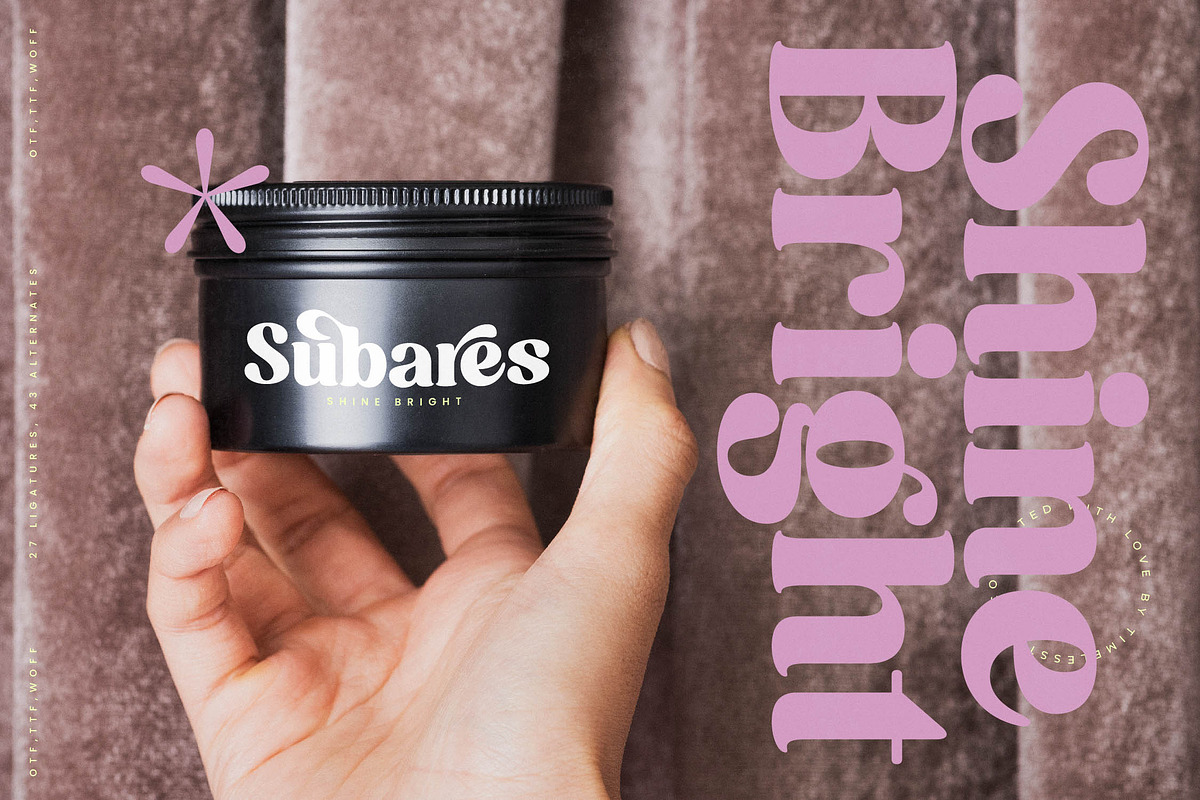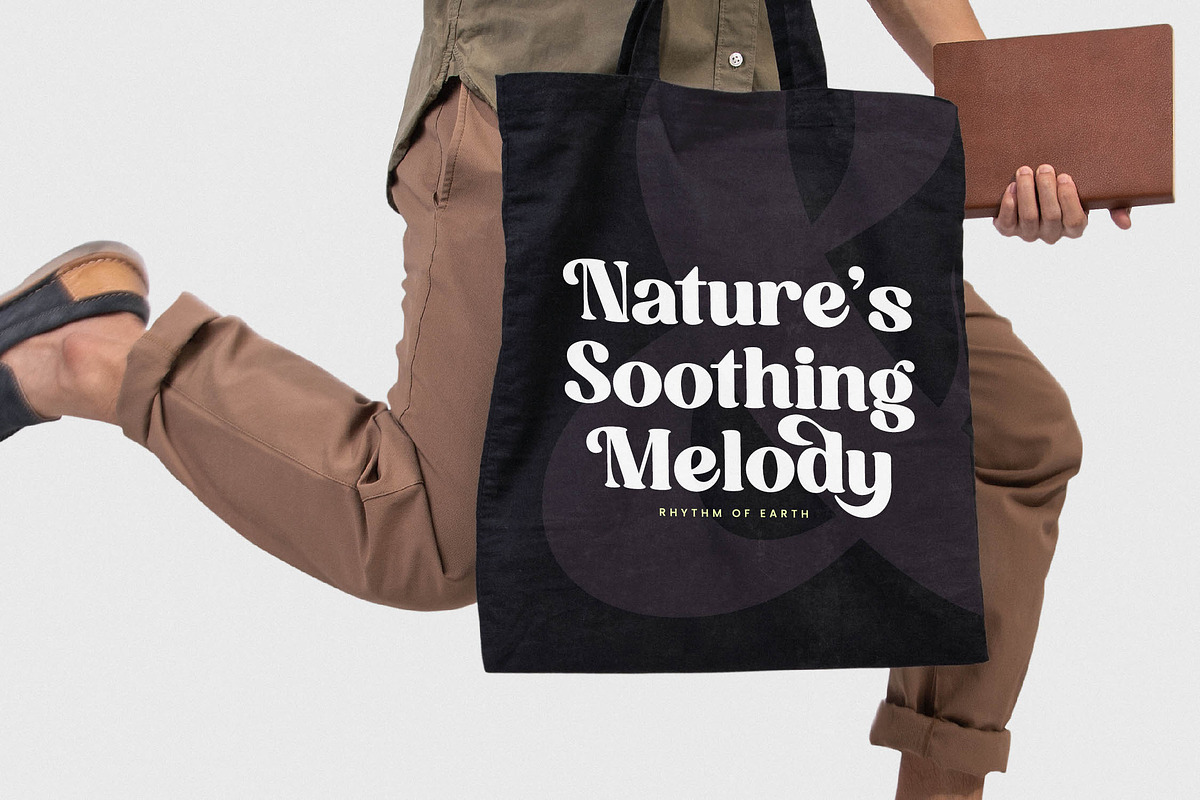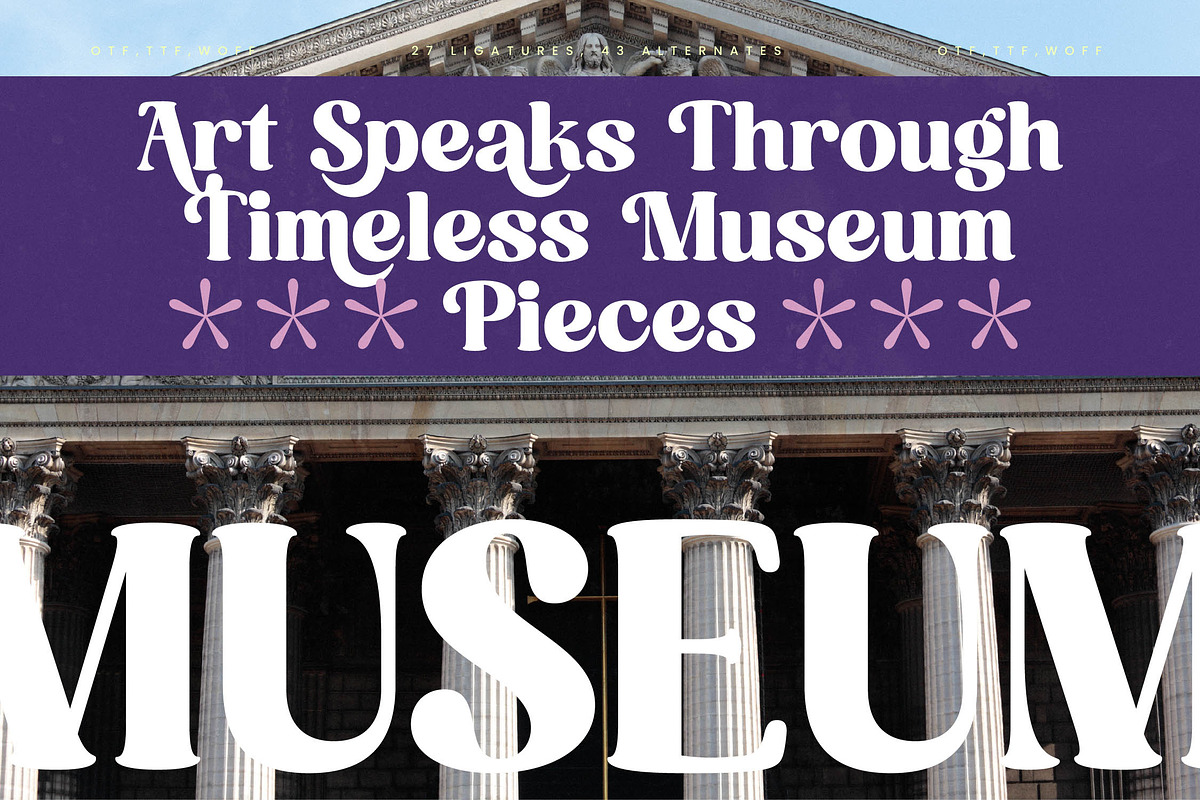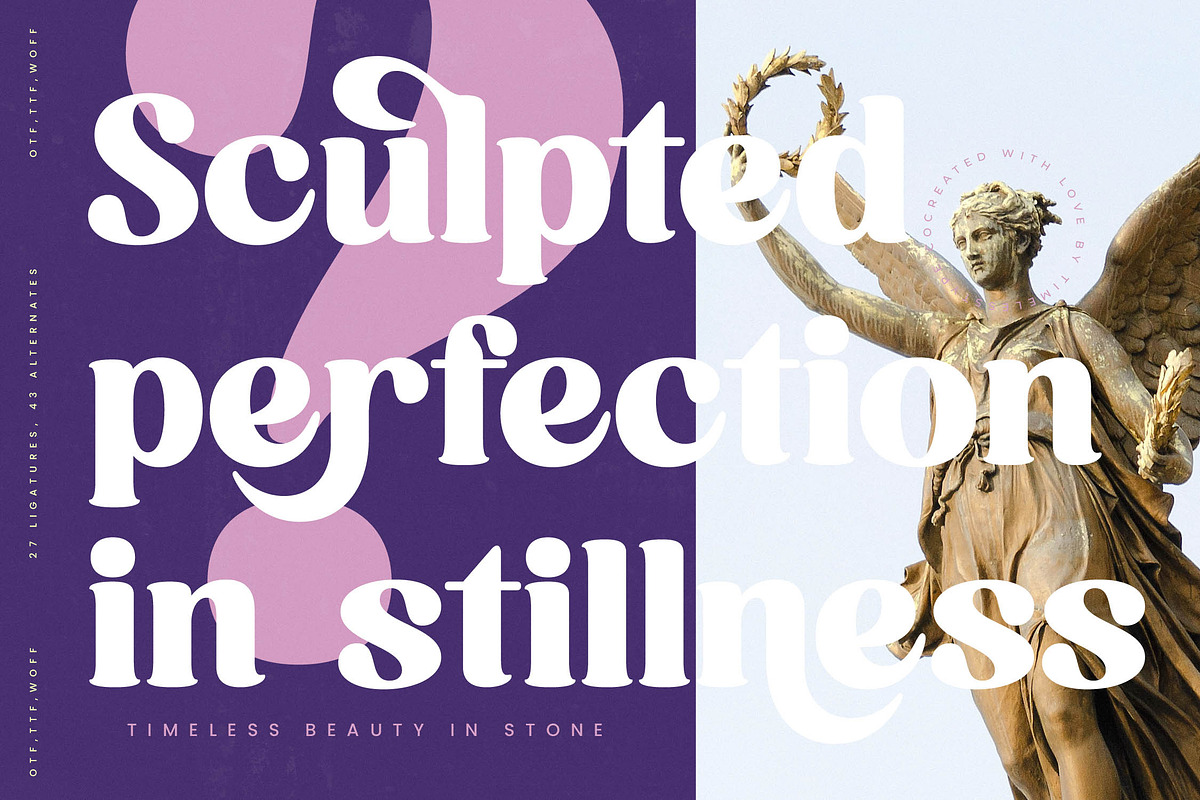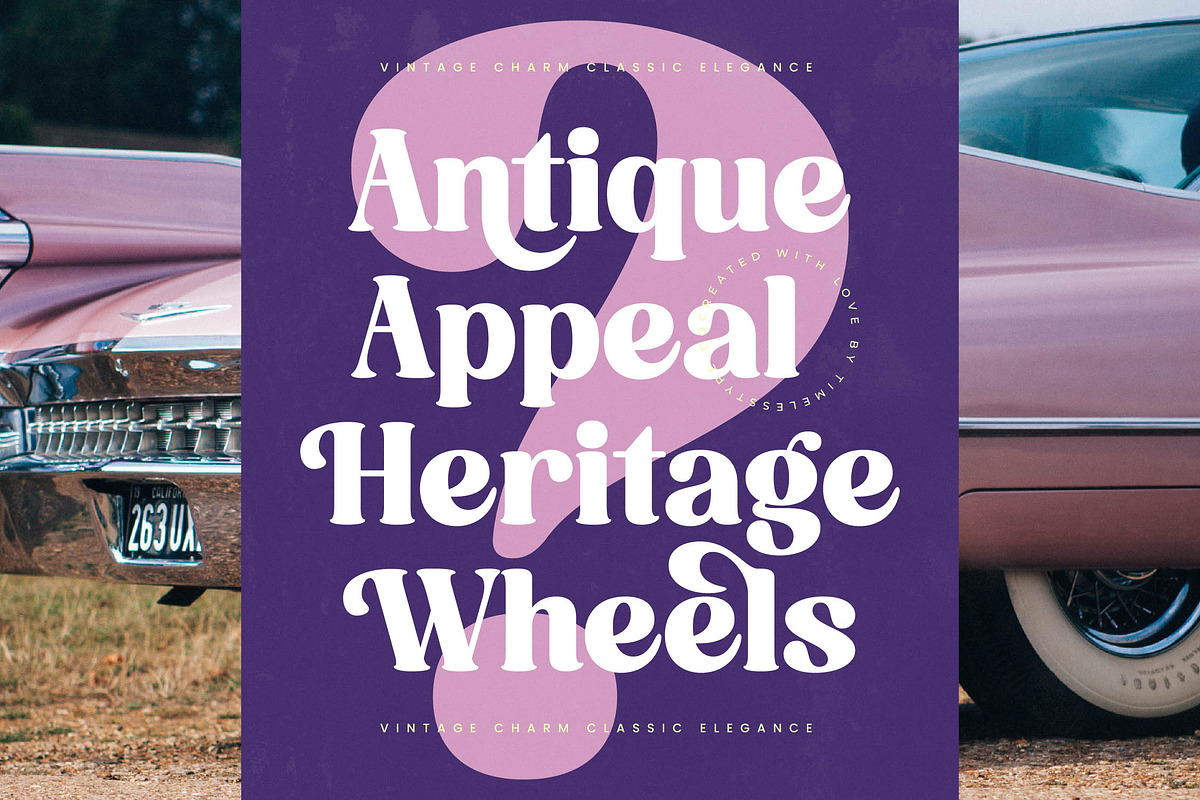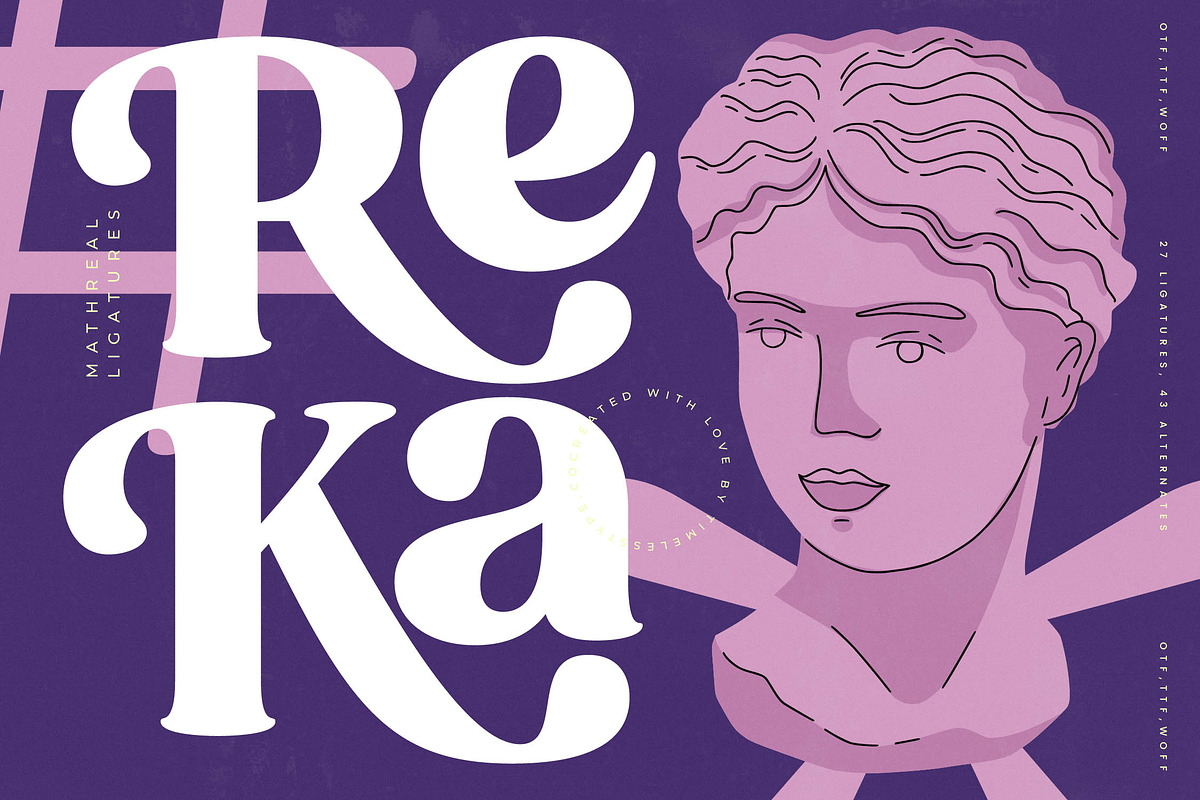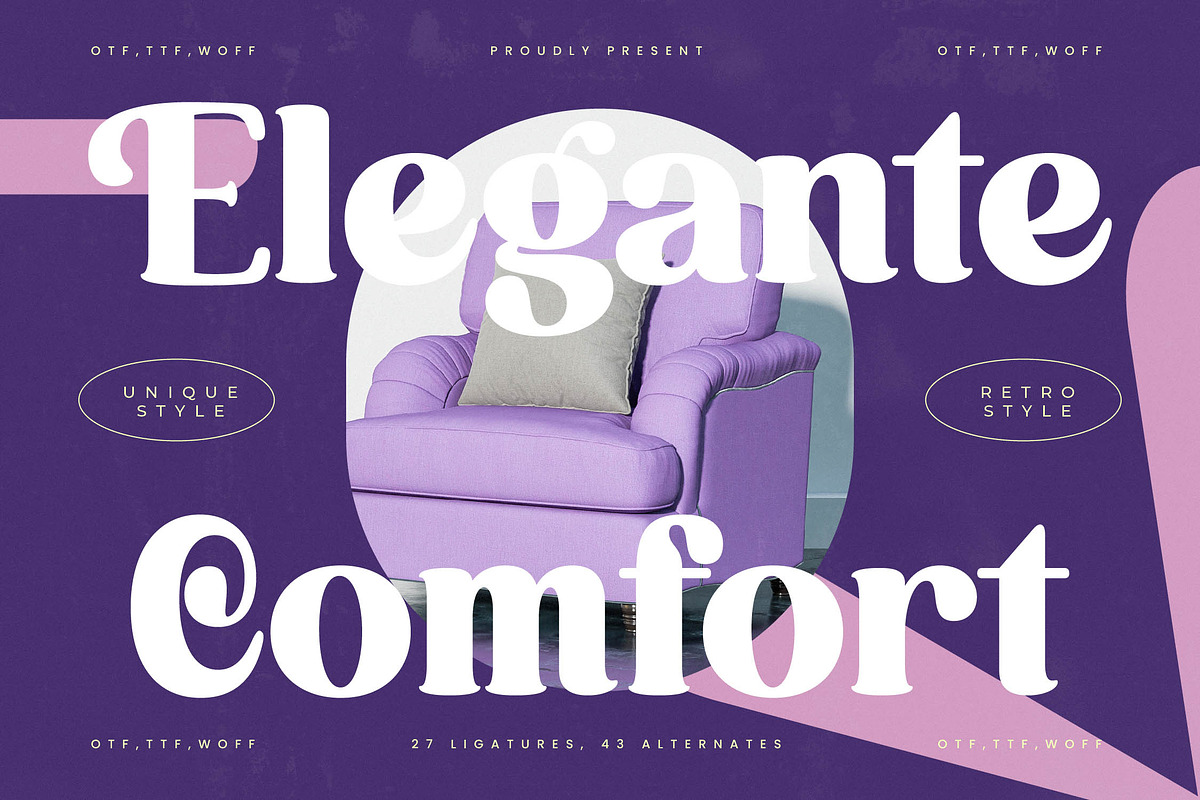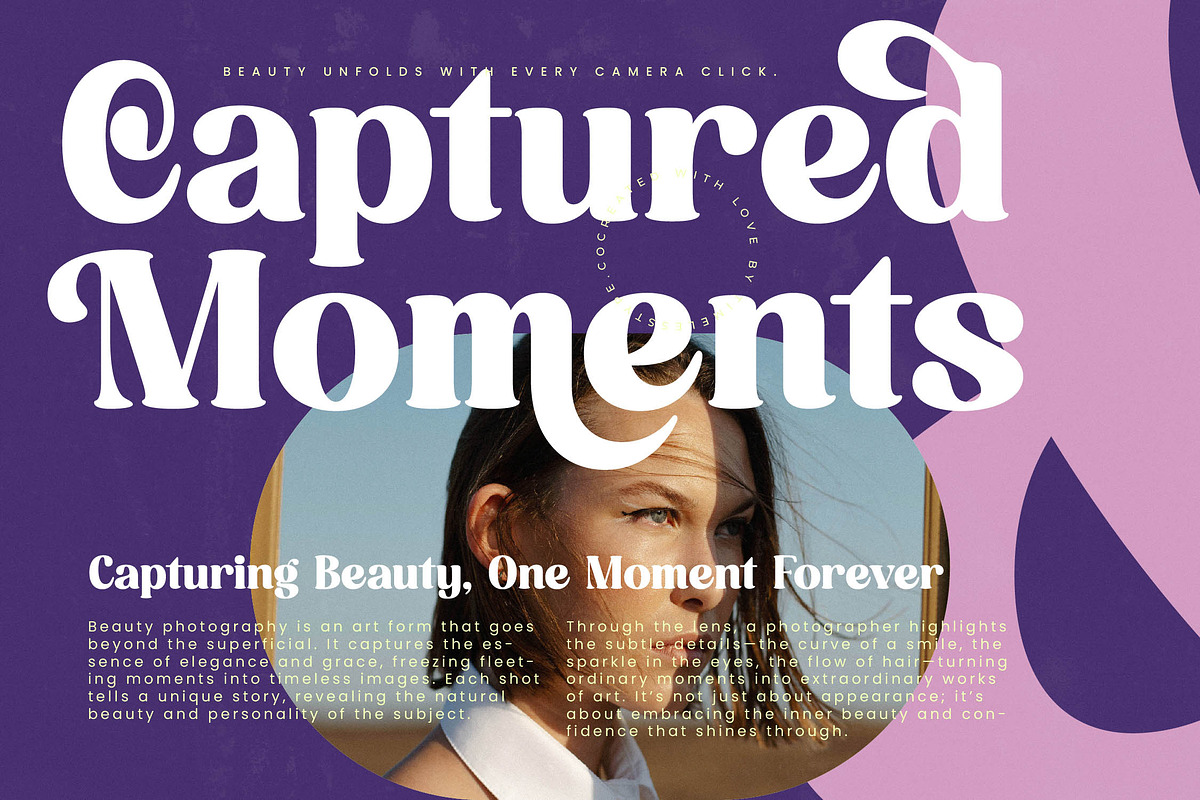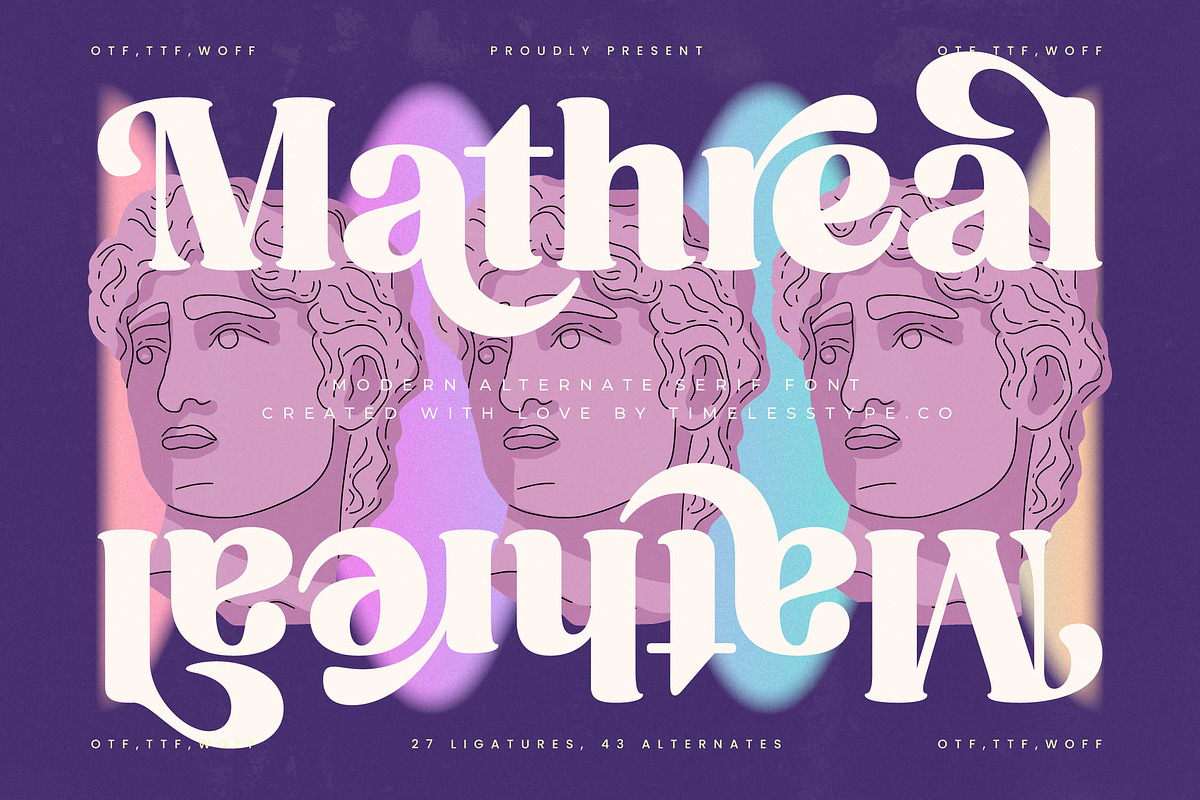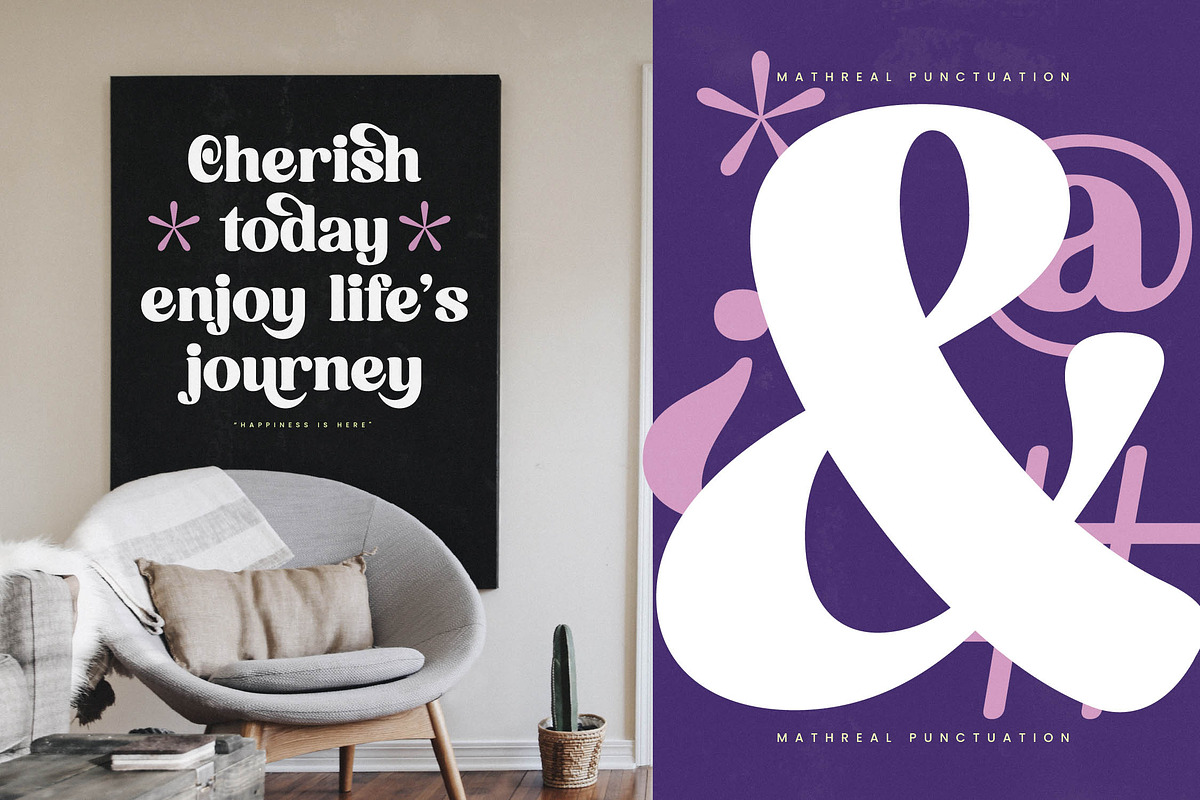
Mathreal Modern Display Serif
Mathreal is a masterclass in typographic elegance, blending classical poise with a rebellious modern spirit. It invites designers to create visual narratives that are as unforgettable as they are beautiful.
Drawing inspiration from the ethereal intersection of neoclassical sculpture and contemporary digital art, this typeface captures a timeless grandeur. The design mirrors the fluid lines of marble masterpieces, translated into sharp, confident digital strokes.
This modern serif display creates an immediate branding impact through its luxury typography and high-contrast serif details. It is a quintessential editorial font designed to command attention while maintaining a sophisticated, high-fashion aesthetic.
Capturing the current modern serif trend, Mathreal excels in the world of editorial display fonts and character-driven typography. It responds to the growing demand for expressive, artistic type that bridges the gap between vintage charm and futuristic minimalism.
Perfect for high-end logo design and comprehensive branding, this font also shines in editorial layouts, luxury packaging, and romantic wedding stationery. Its versatility makes it a staple for any fashion project requiring a touch of refined grace.
The typeface includes an extensive set of 27 ligatures and 43 alternates with artistic swashes for custom compositions. It offers full multilingual support and includes international characters to ensure your message reaches a global audience with ease.